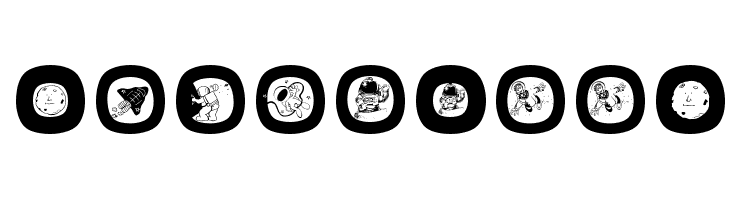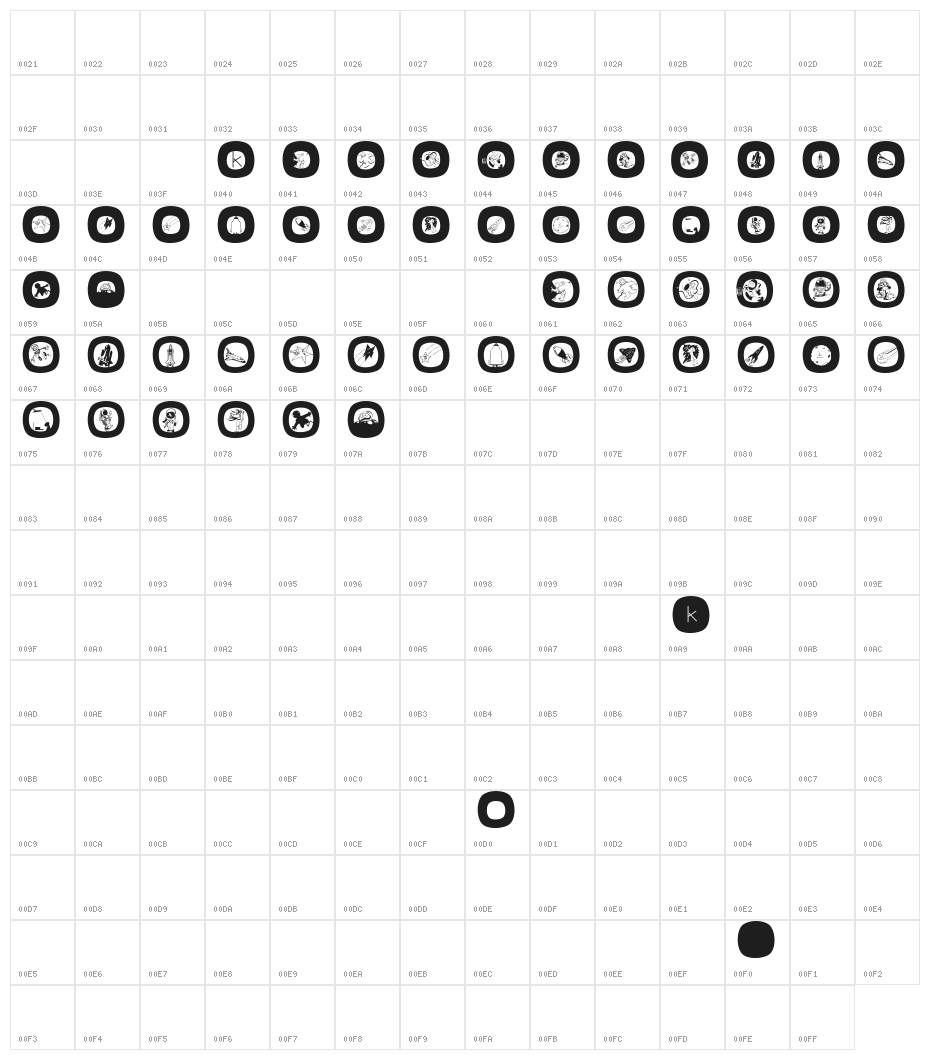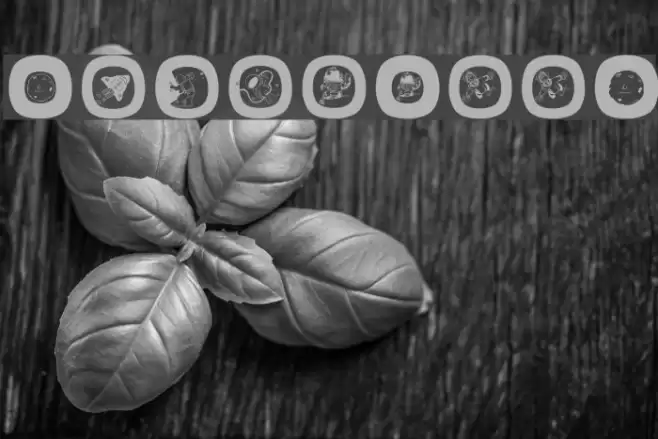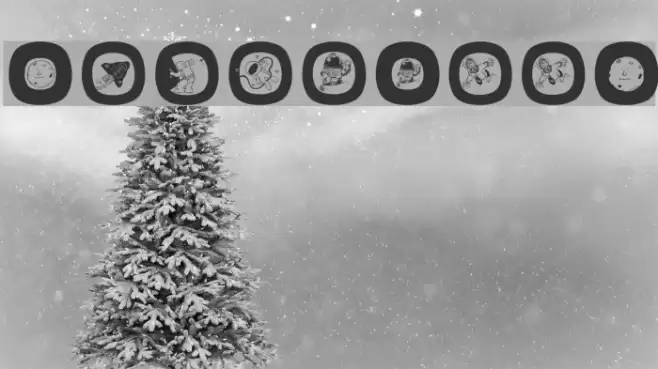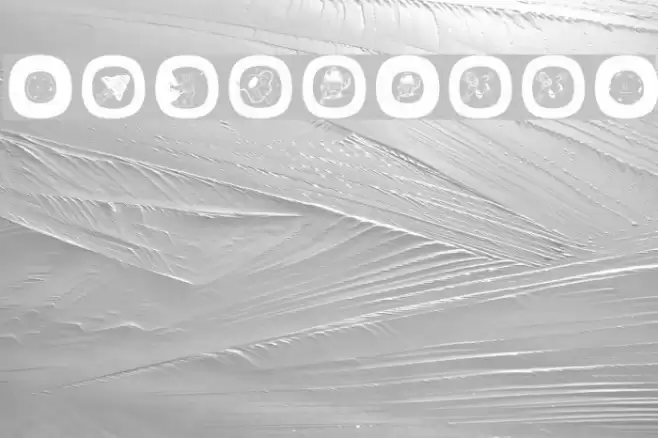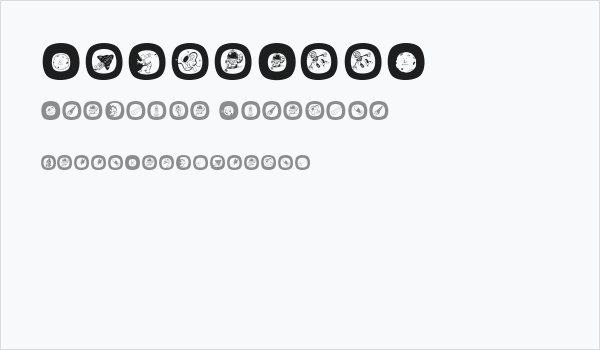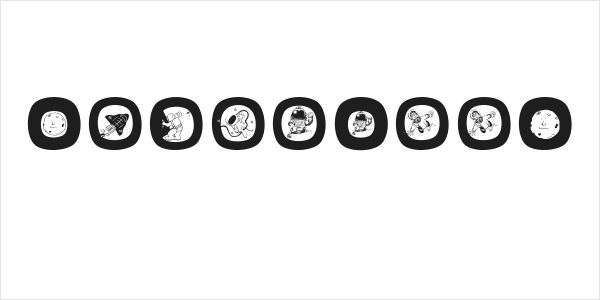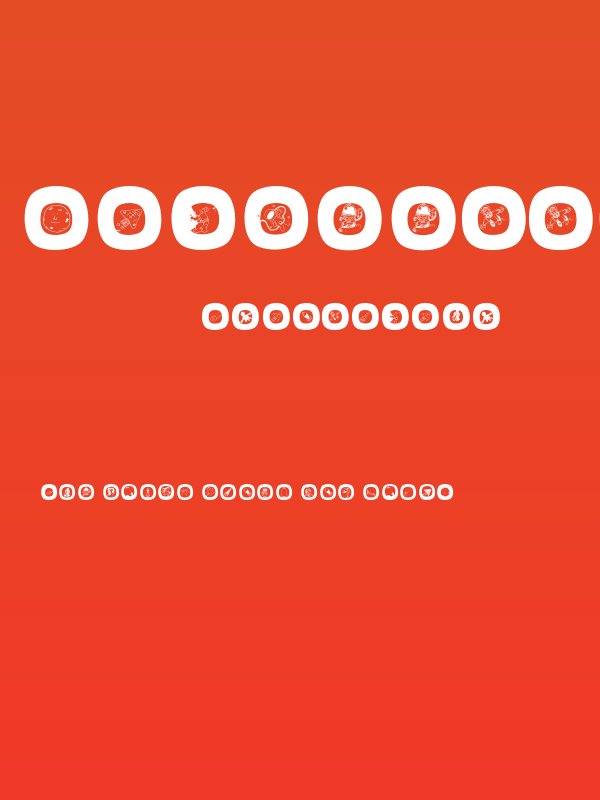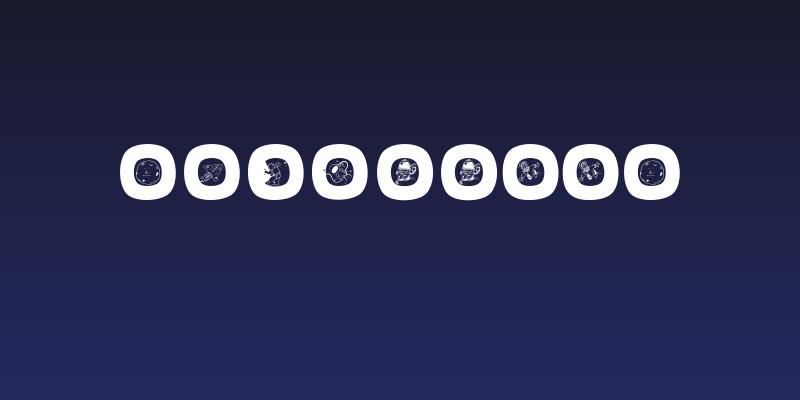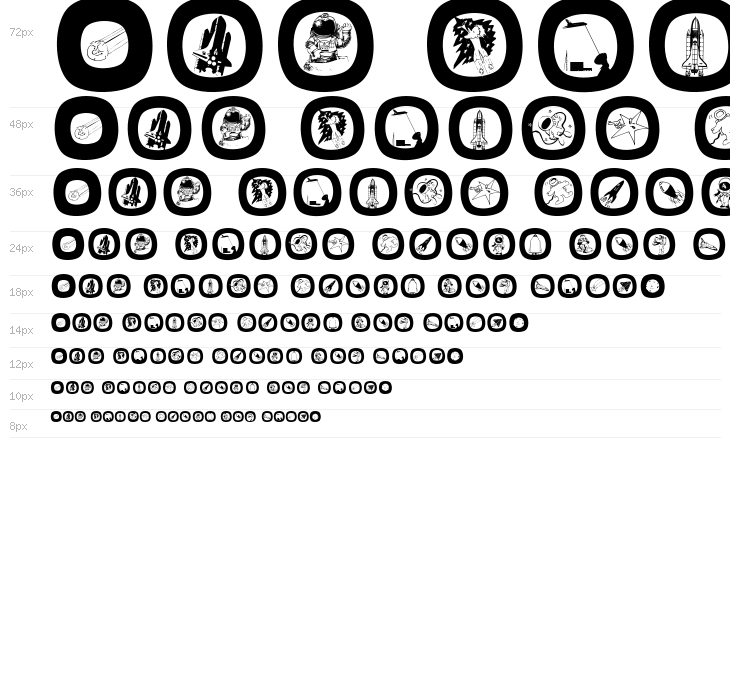
SpaceEggs Font
SpaceEggs Description
This is not a traditional font but rather a collection of whimsical, space-themed icons enclosed in rounded squares. Each character is represented by a unique illustration, such as rockets, planets, and astronauts, giving it a playful and imaginative feel. The icons are monochromatic, with a bold black outline and white interior, creating a striking contrast. This set is more suited for decorative purposes rather than textual communication, as it does not follow the standard alphabetic or numeric representation.
| Use Case | Logos, Decorative elements |
| Proposed Projects | Ideal for children's books, educational materials, space-themed party invitations, or creative design projects that require a whimsical touch. |